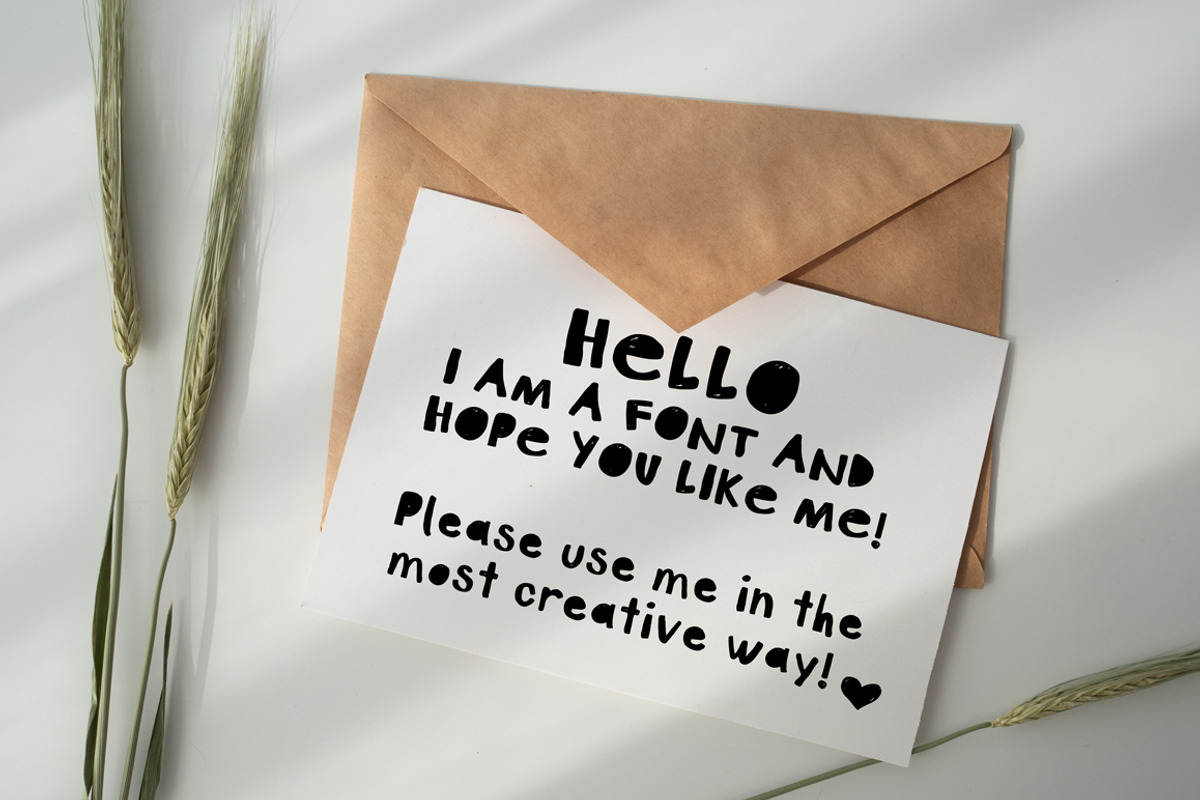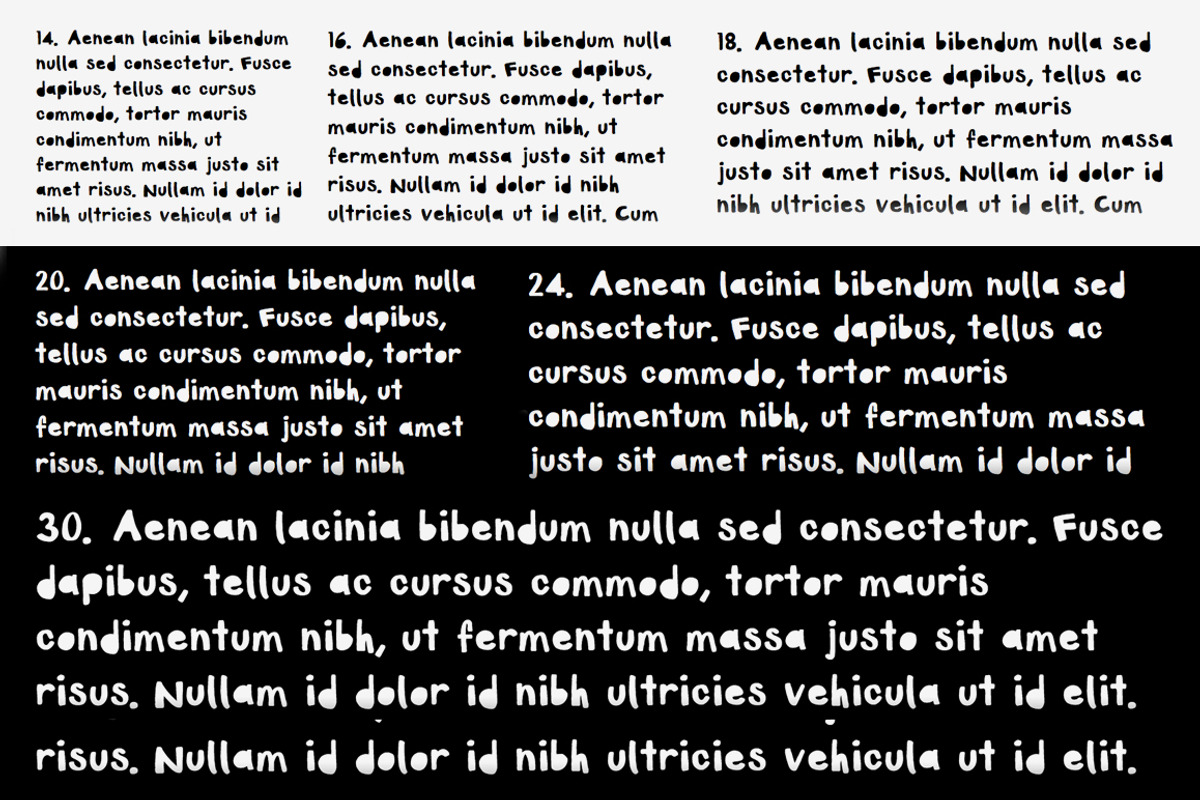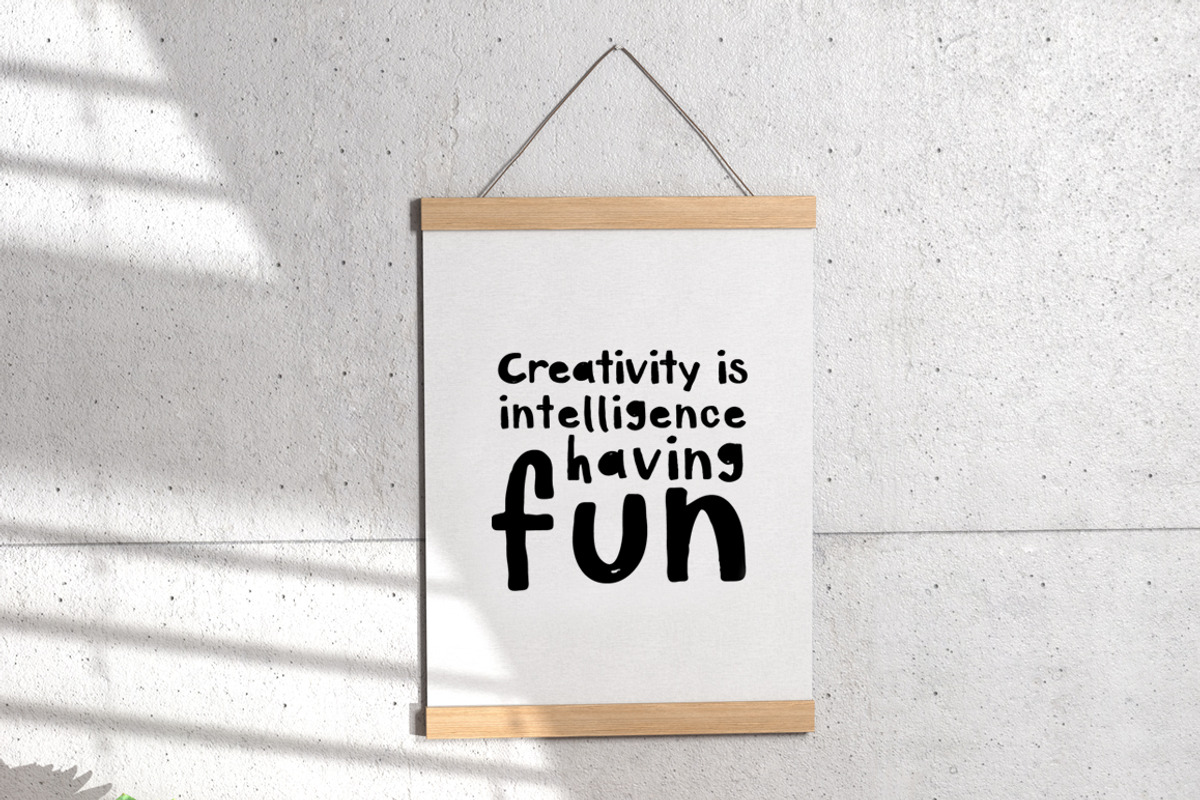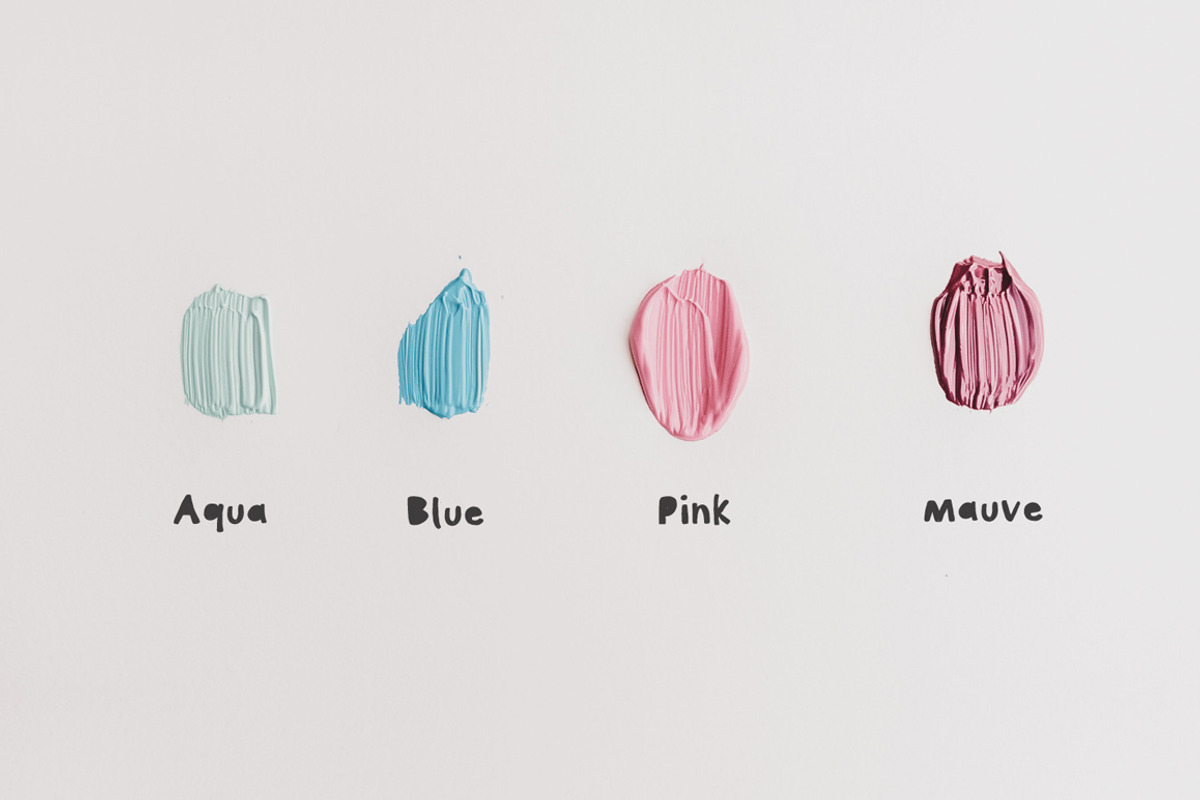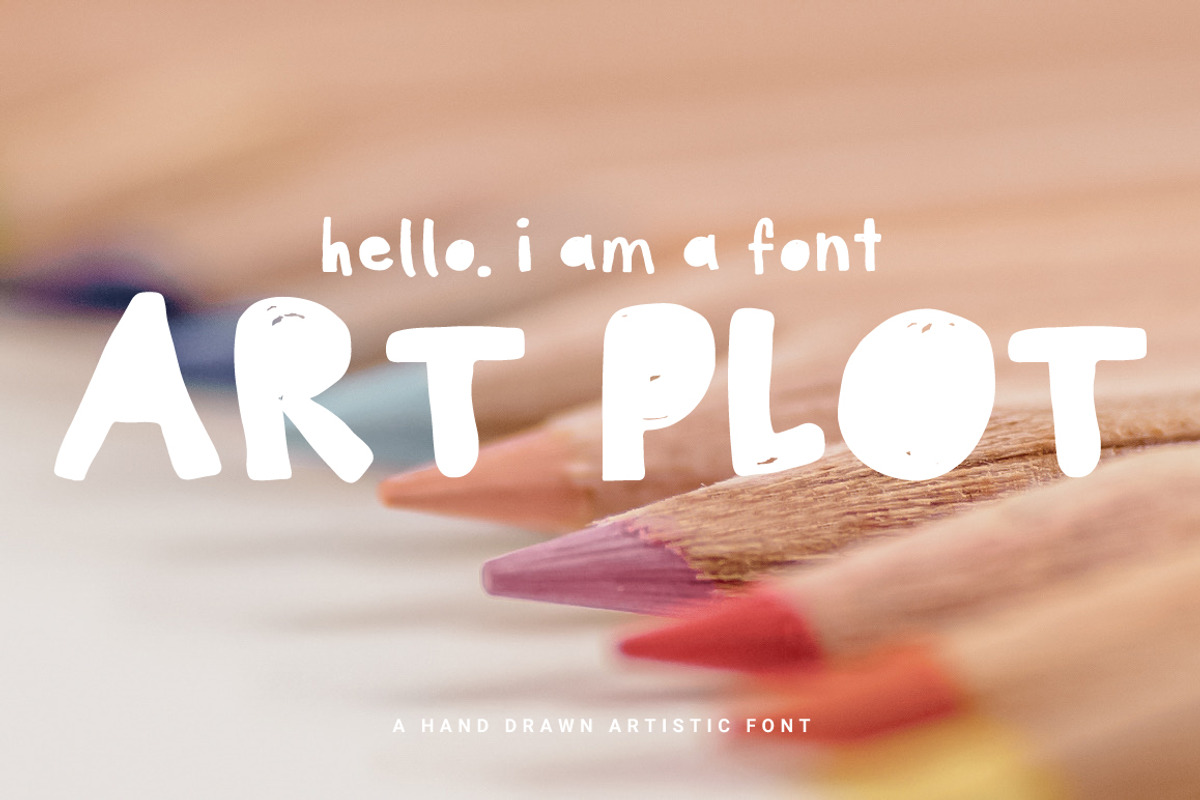
Art Plot Bold Hand Drawn Font
Art Plot Bold Hand Drawn Font by pixelcolours is a font selected for branding, posters, packaging, typography.
Why Art Plot Bold Hand Drawn Font is worth a look
Art Plot Bold Hand Drawn Font by pixelcolours fits naturally into Branding, posters, packaging, typography.